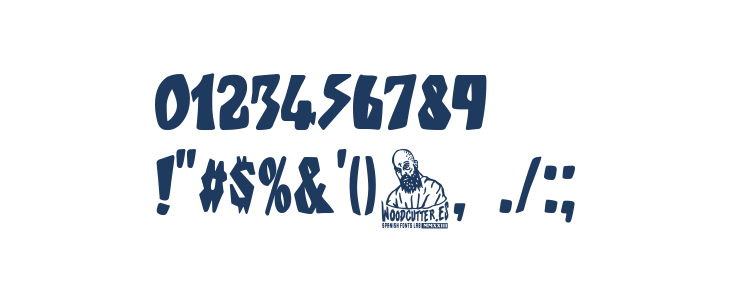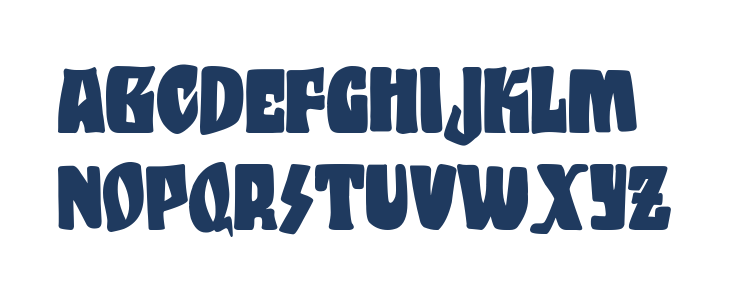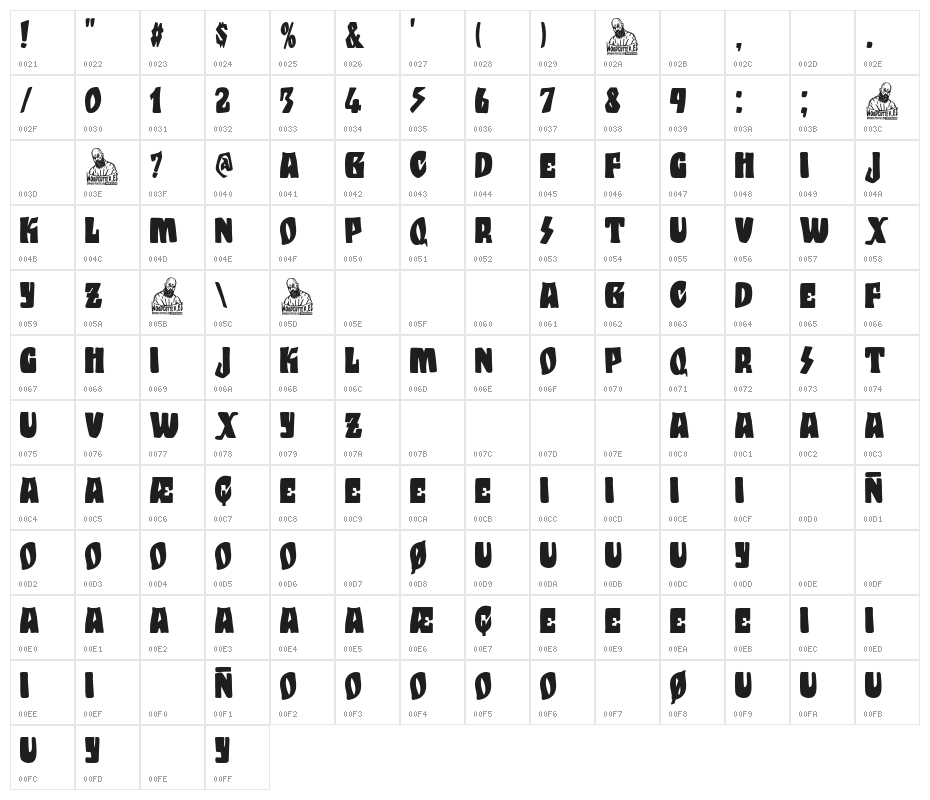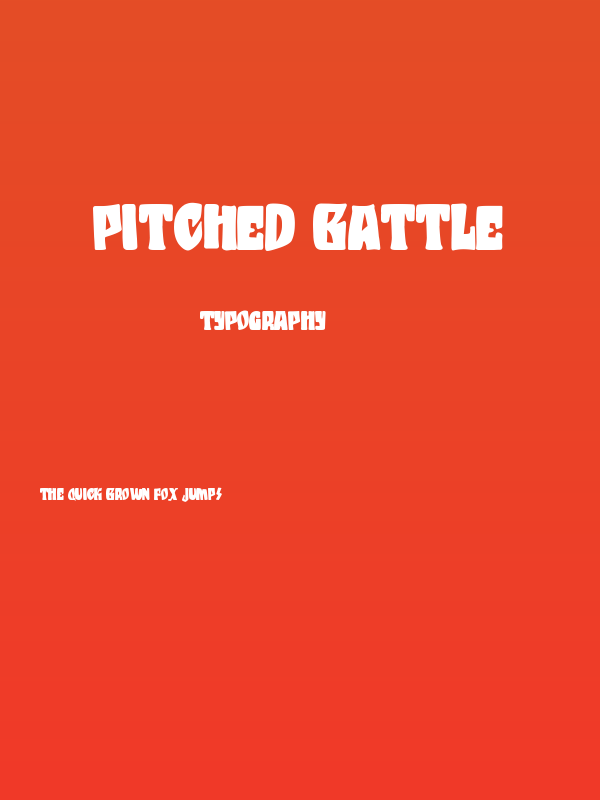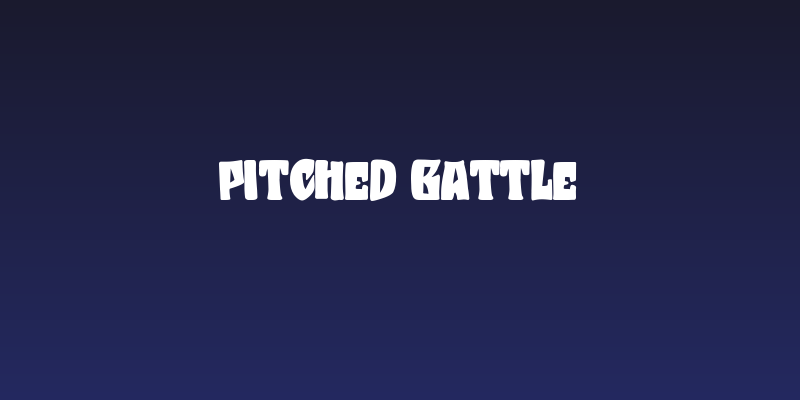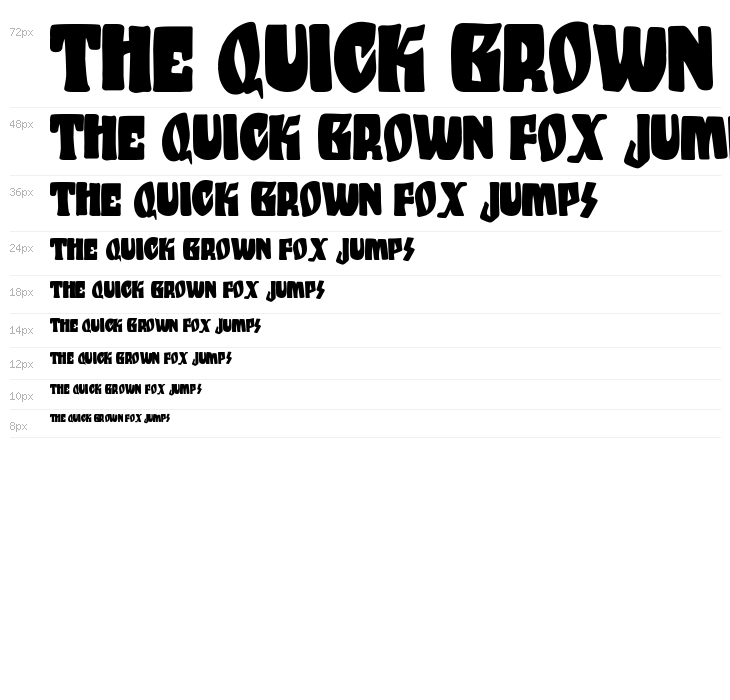
Pitched Battle Font
Pitched Battle Description
A bold, heavy display font with irregular, blocky letterforms and exaggerated, playful shapes. The characters have a hand-cut, almost cartoonish appearance with uneven edges and a strong visual presence.
| Overall Style | Decorative, Playful, Handcrafted |
| Use Case | Headlines, Posters, Logos |
| Proposed Projects | Posters, comic book titles, event flyers, childrenΓ’β¬β’s book covers, branding for entertainment or games. |